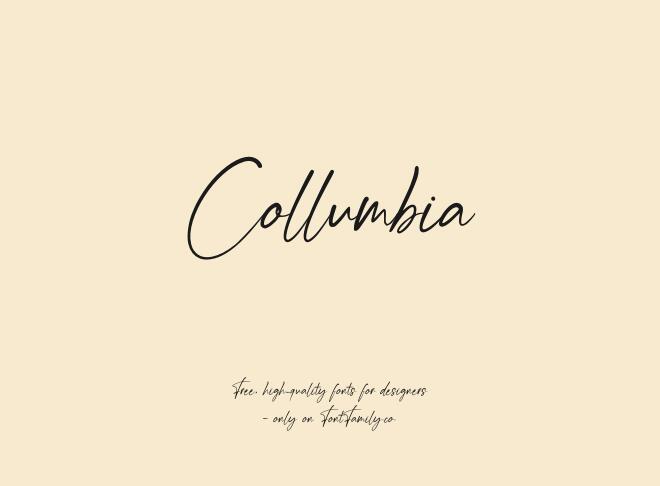
Collumbia Font
Collumbia Font is a modern, elegant script font that adds a sophisticated touch to any design. Featuring smooth curves and clean lines, this font is reminiscent of classic calligraphy but with a contemporary twist. Perfect for branding, wedding invitations, business cards, and any project that needs a touch of elegance. Collumbia Font is a versatile typeface that brings together a perfect blend of classic and modern styles. This unique font stands out from other script fonts with its distinctive style and high readability. It's a great choice for designers looking to add a touch of sophistication and modernity to their designs. With its Open Font License, Collumbia Font is not only beautiful but also accessible to everyone.